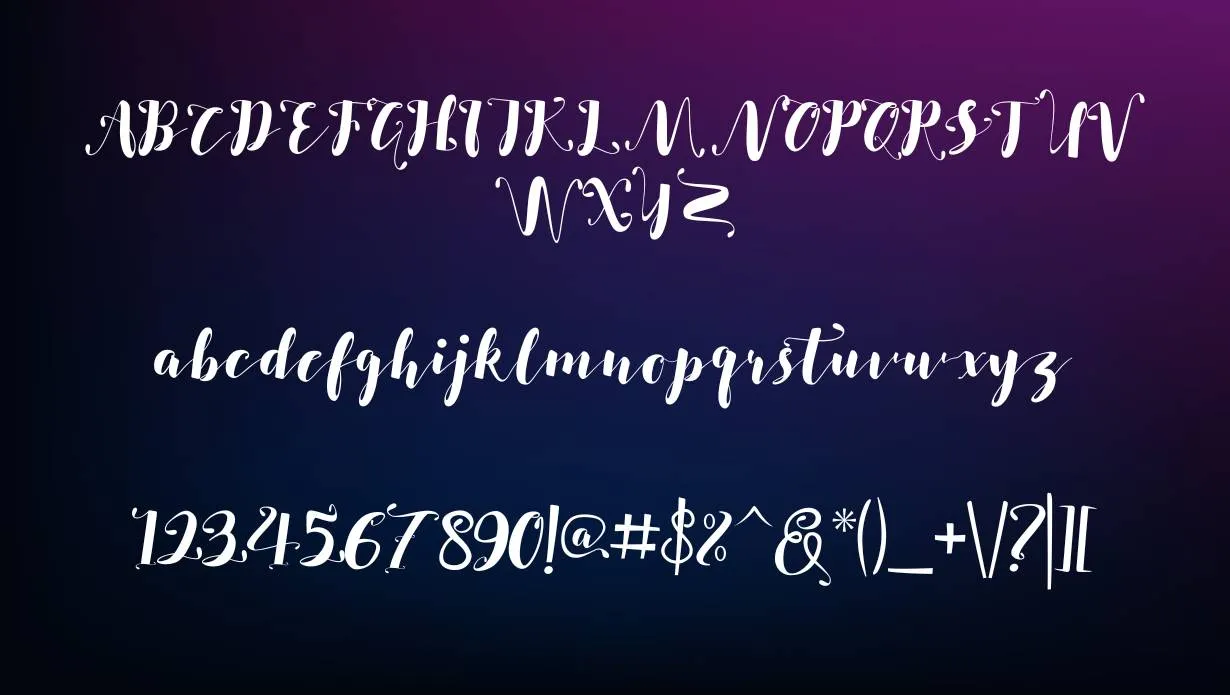
Salsabilla Font is a flowing and graceful script typeface known for its elegant and romantic design.
This font’s cursive style and delicate strokes create a feeling of romance and charm in your projects. The typeface family is highly versatile and accommodating for numerous foreign languages, making it an ideal choice when paired with decorative fonts like kaushan script font.
It’s often chosen for wedding invitations, love-themed branding, and designs that aim to evoke a sense of warmth and affection.